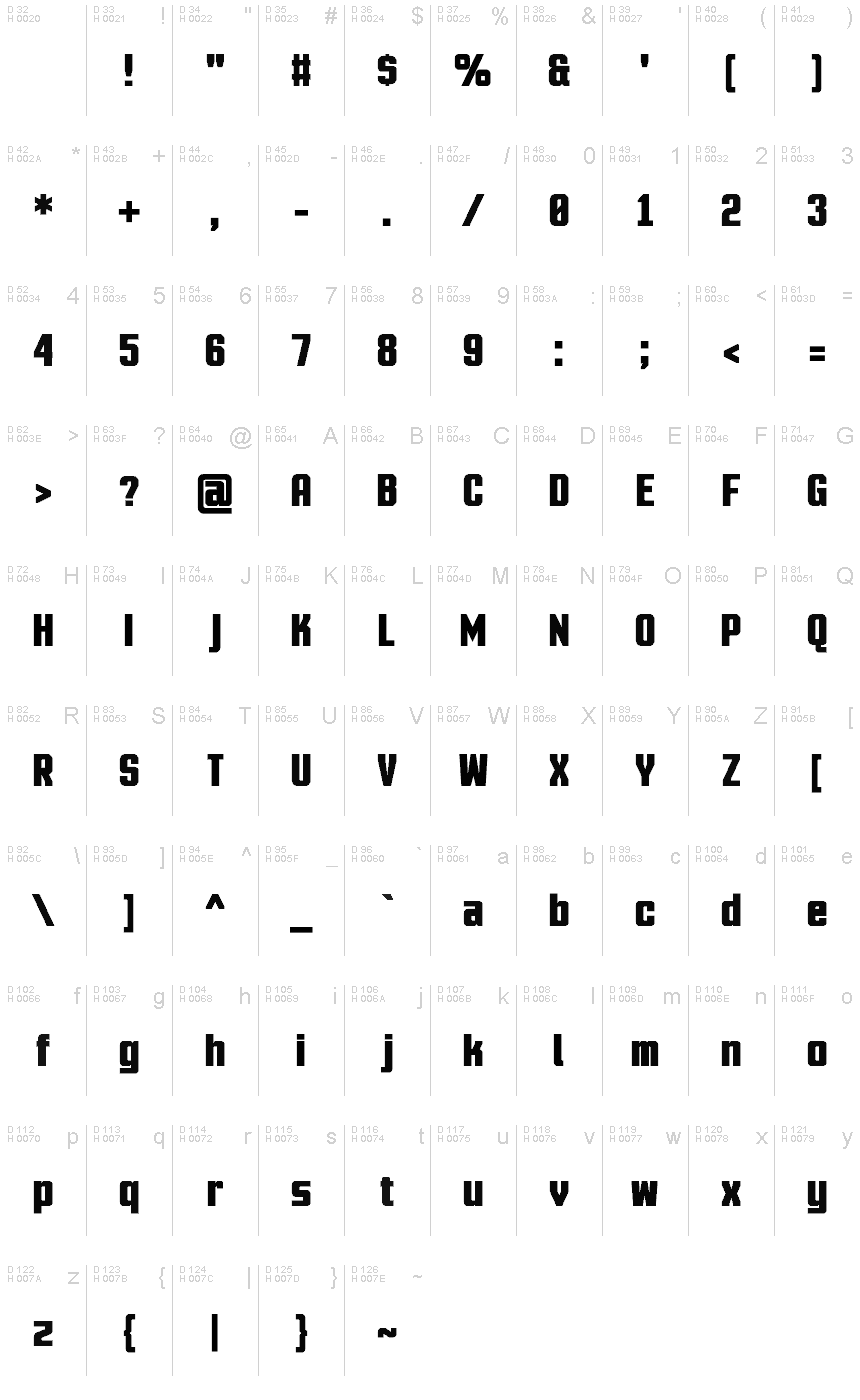
Motion Control Neue Lite Bold
Motion Control Neue Lite Bold is a bold, condensed sans serif font that exudes a strong, industrial aesthetic. Designed by JapanYoshi, this typeface features sharp, angular letterforms that convey a sense of dynamism and precision. The font's condensed width lends it an authoritative presence, making it well-suited for headlines, branding, and other high-impact design applications.
Its clean, geometric forms and robust personality make Motion Control Neue an excellent choice for a wide range of contemporary design projects, from editorial layouts to product packaging. The font's versatility and striking visual impact make it a valuable addition to any designer's typographic arsenal.
This is an improvement on my own popular font Motion Control. Some letterforms have been fixed to enhance its appearance. While the Lite version does not include the other fixes, the paid version, available for $3 on Creative Market, offers extended language support, OpenType alternates, and three pre-obliqued weights in five increments.